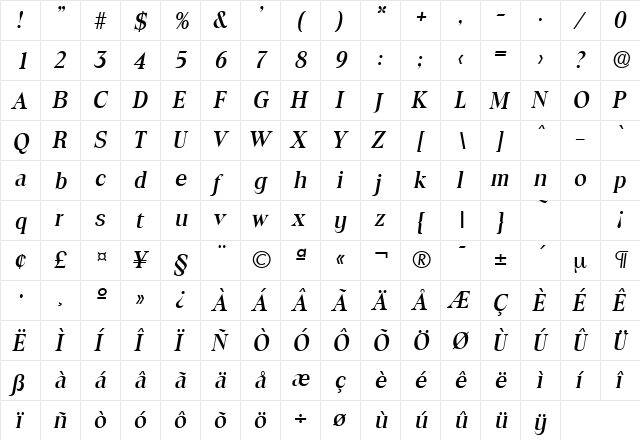
Toledo-Serial-Medium RegularItalic
Design Context for Toledo-Serial-Medium Typeface
Toledo-Serial-Medium takes a measured approach to typography — its balanced proportions and neutral character make it a reliable workhorse for both digital and print work. The dynamic lean of this cut emphasises speed and emphasis in any layout.
Pro Tip: Try Toledo-Serial-Medium for annotation and caption copy alongside an upright companion — the contrast in angle creates a dynamic but ordered typographic system.